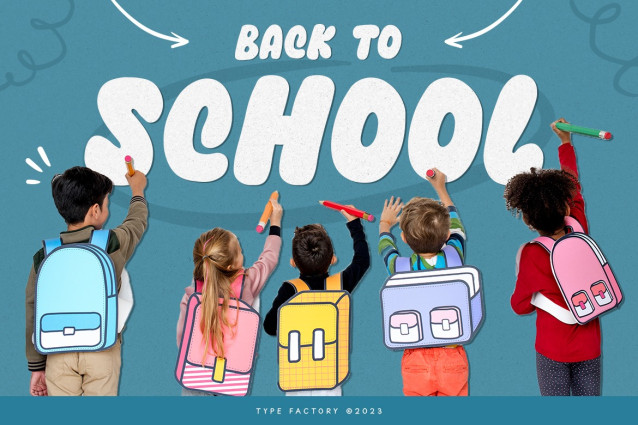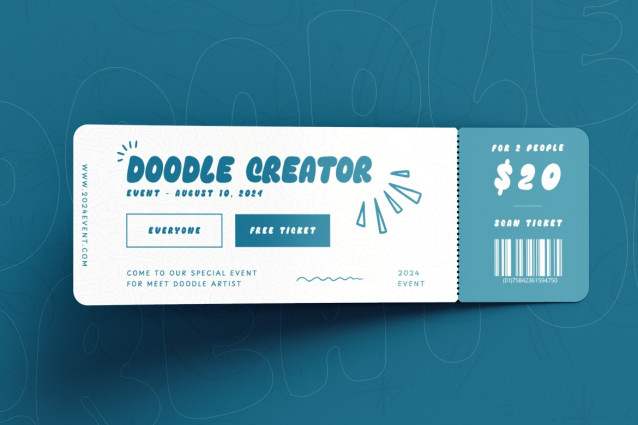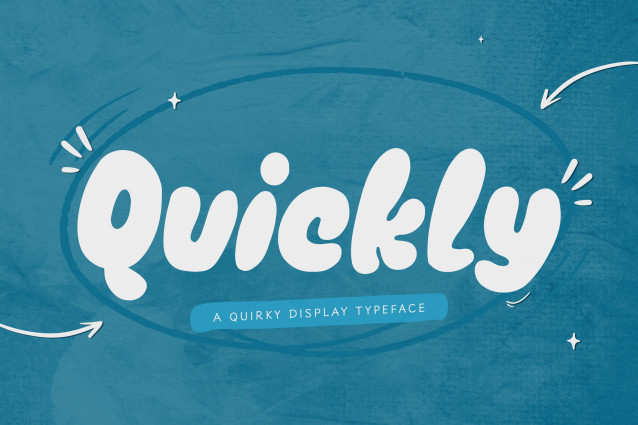
Quickly Playful Font
Quickly Playful Font, the quirky, chunky, and irresistibly friendly display typeface designed to bring an instant smile and a burst of playful energy to any project!
Inspired by bouncy, fluid shapes and a lighthearted vibe, Quickly is your go-to font for designs that need to be fun, approachable, and impossible to ignore. Its bold, rounded forms are perfect for capturing the essence of childhood and making a strong, friendly statement.
– Quirky & Bouncy Style: The extra-chunky, rounded letterforms give the font a unique, hand-drawn feel that exudes personality and fun.
– Complete Character Set: Includes a full set of Uppercase and Lowercase letters, Numerals (0-9), and essential Punctuation.
– Extensive Multilingual Support: Quickly is packed with a wide range of accented characters and symbols, ensuring your designs are accessible and work beautifully across many languages.